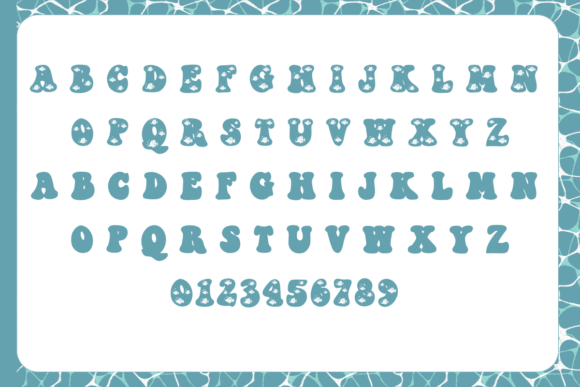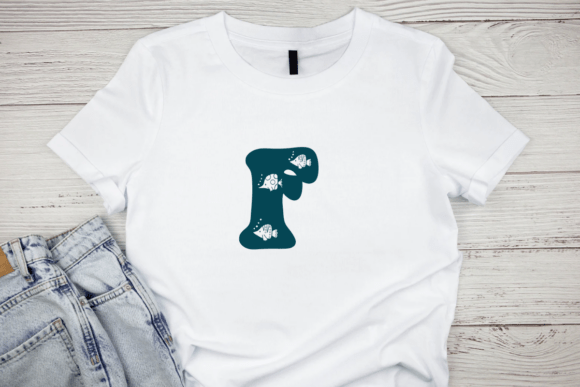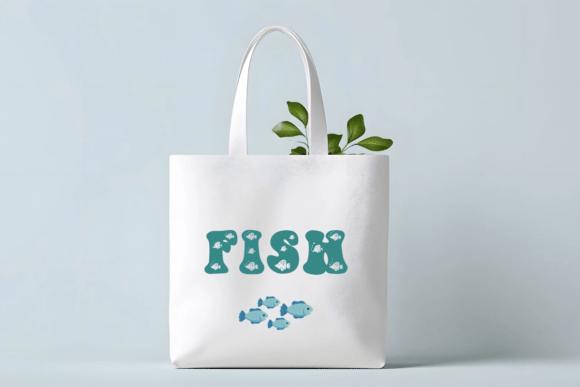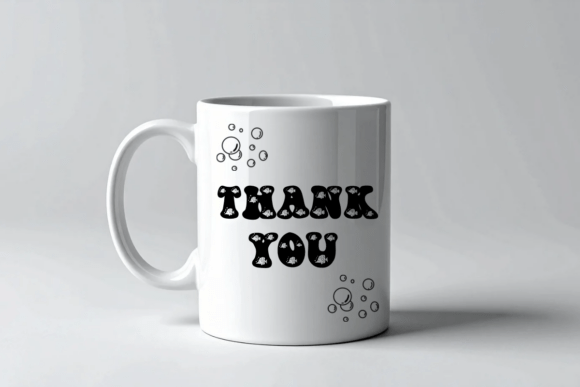
Introduction to Lovely Fish Font
Do you remember the excitement of discovering a new font that sparks your creativity? For designers, finding the perfect font can be a game-changer, elevating a project from ordinary to extraordinary. Recently, I stumbled upon the Lovely Fish Font, and I just couldn’t wait to share it with fellow design enthusiasts.
This delightful font is perfect for adding a touch of whimsy to any creative project. Whether you’re working on a high-quality design for a client or simply want to give your social media posts a unique twist, the Lovely Fish Font is a valuable resource that’s sure to impress. With its transparent background, you can easily layer it with other design elements to create stunning visuals.
Key Features of Lovely Fish Font
- High-resolution design with transparent background, ideal for creative projects requiring a unique visual element.
- Unique and customizable, allowing designers to experiment with different colors and styles to match their project’s aesthetic.
- Designed to be easily scalable, making it suitable for use in a variety of contexts, from small logos to large-scale graphics.
Honest Review: Lovely Fish Font
I recently had the chance to work with the Lovely Fish Font, and I must say it’s a great addition to any design project. As a designer, I’m always on the lookout for high-quality fonts that can help bring a creative project to life.
The Lovely Fish Font is a free download, which is a huge plus in my book. It’s always exciting to find a design resource that’s both professional and accessible. The font’s transparent background makes it easy to use on a variety of backgrounds, from solid colors to intricate patterns.
- Easy to use, with a transparent background that makes it versatile
- Only available in a few weights, which may limit its use in certain contexts
- No bold or italic variations, which could be a drawback for some designers
Overall, I’m impressed with the Lovely Fish Font. It’s a solid choice for designers looking for a high-quality, free font that’s perfect for creative projects.
The Lovely Fish Font is a high-quality design resource that can add a creative touch to your projects. It’s available for free download and features a transparent background, making it easy to use in various design applications.
Tips for Getting the Most Out of Lovely Fish Font
To get the most out of Lovely Fish Font, use it in combination with other design elements, such as graphics and images. Experiment with different font sizes and colors to create a visually appealing design.